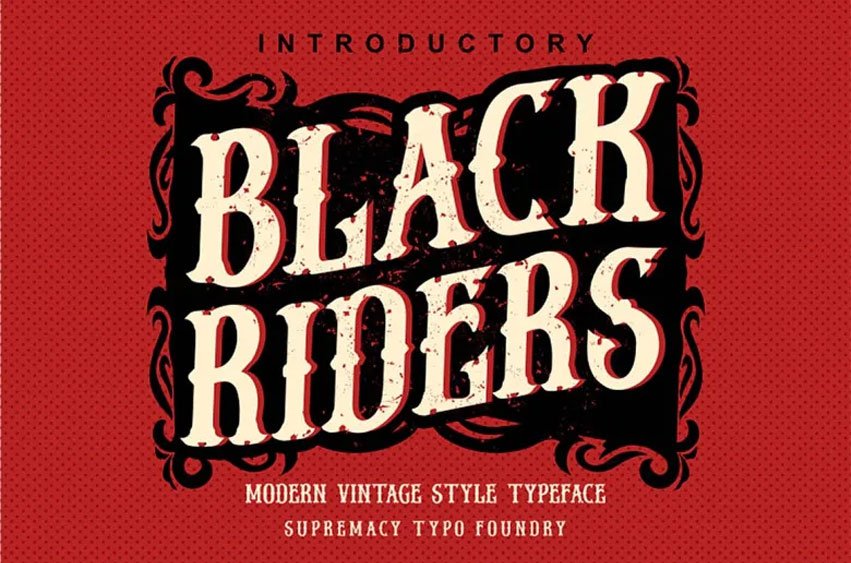
Black Riders Font fits in headlines, logos, posters, flyers, invitations, name cards, branding materials, print media, editorial layouts, and many more.
This font is here to enhance the quality of your designs.